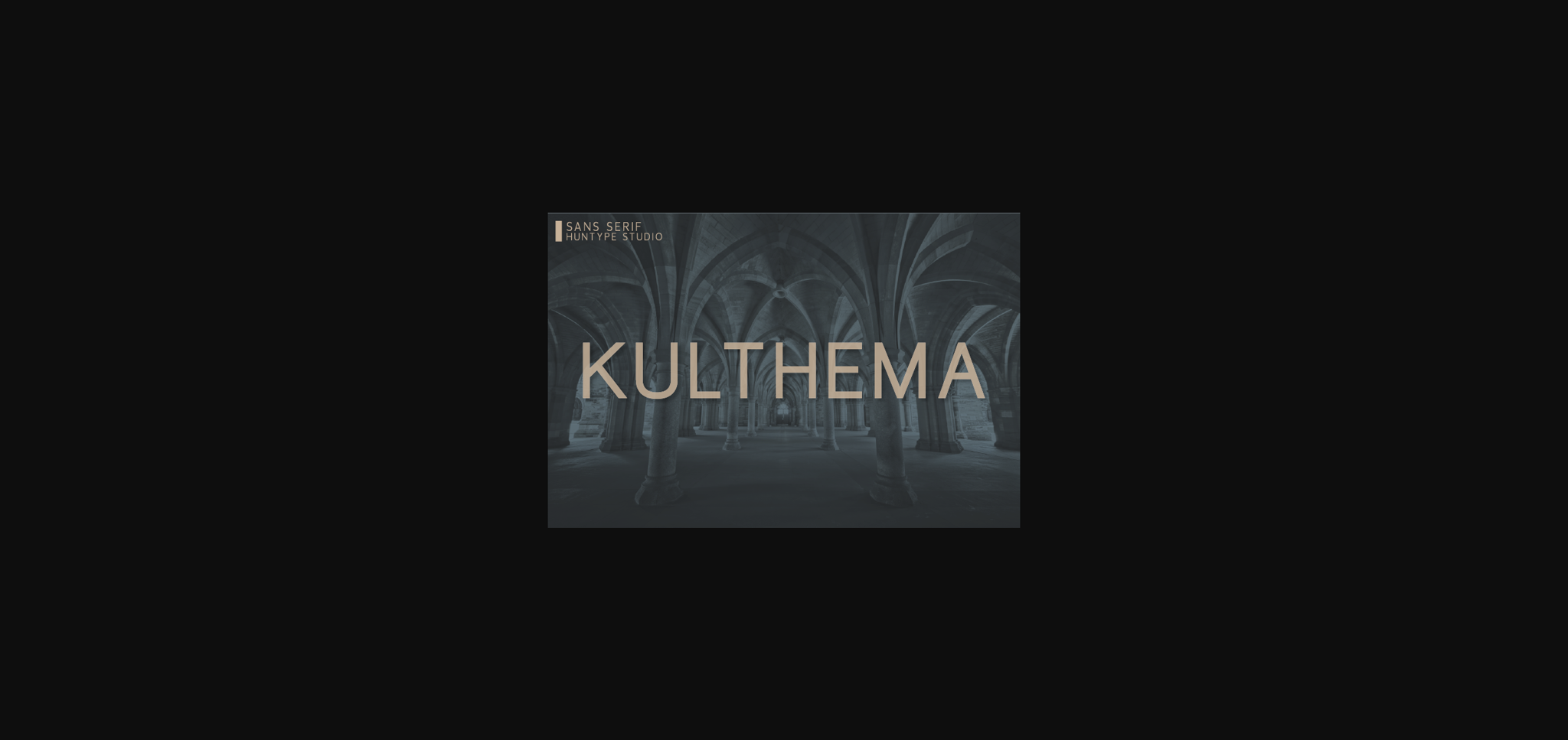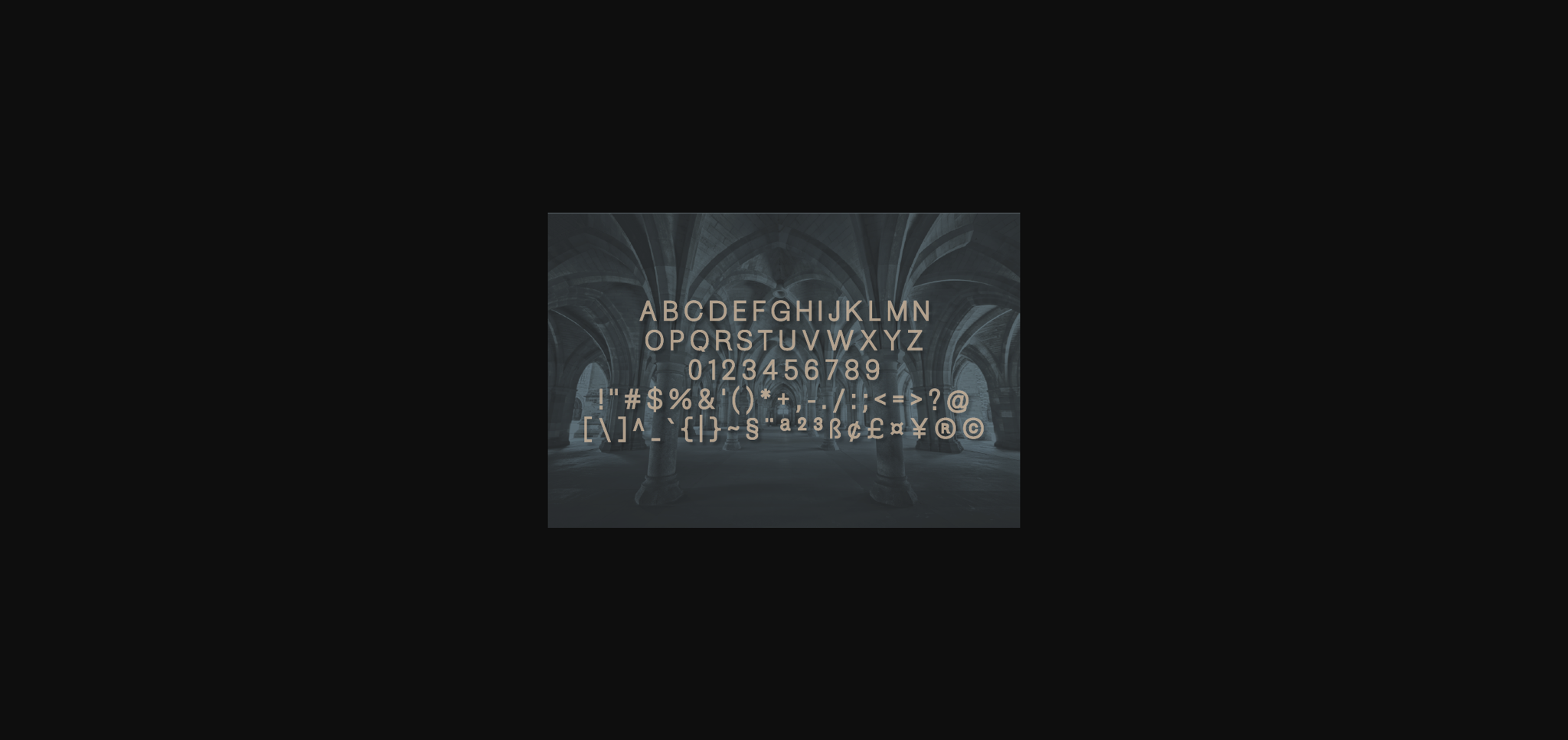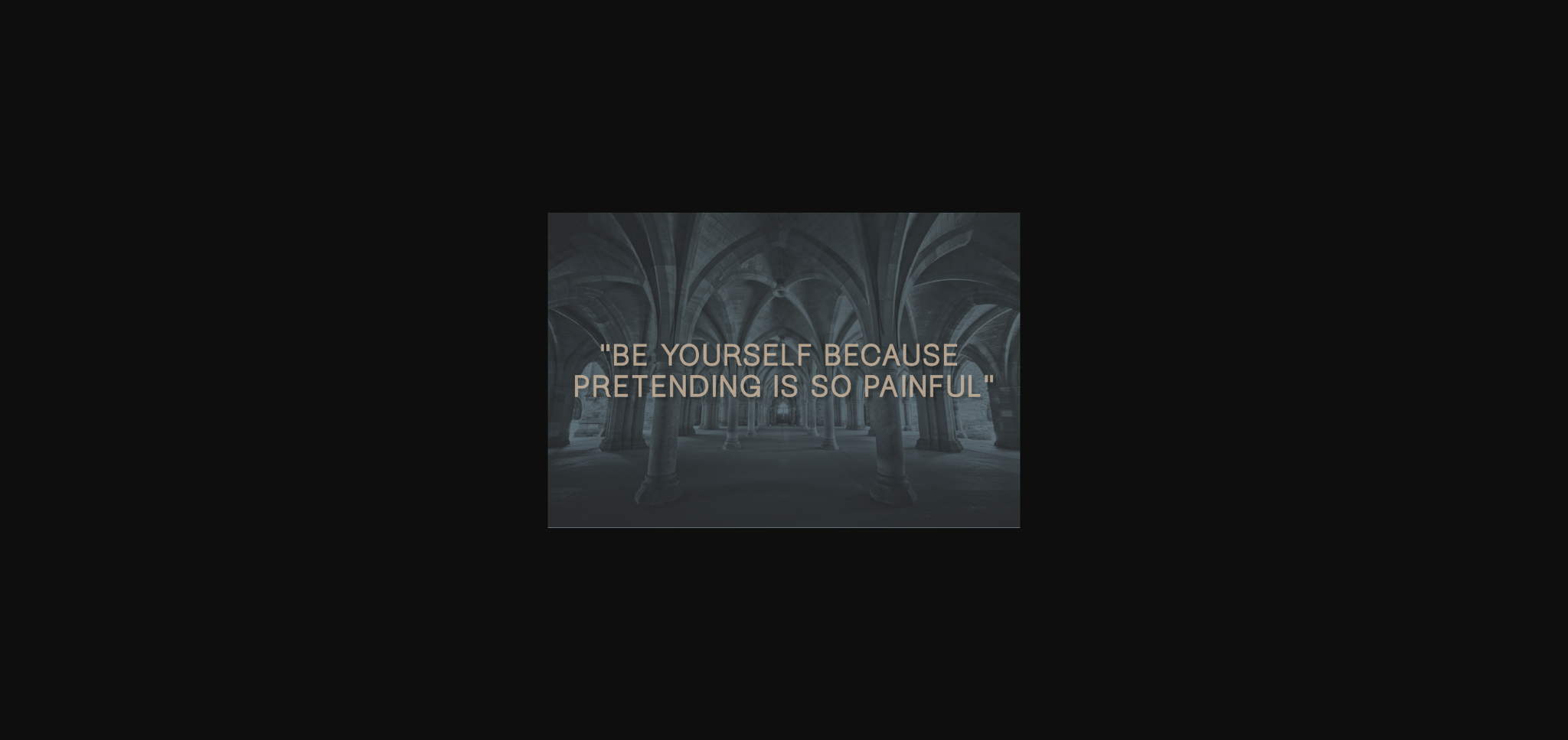
About Kulthema Font
Kulthema is a minimal and neat sans serif font. It can easily be matched to an incredibly large set of projects, so add it to your creative ideas and notice how it makes them stand out!